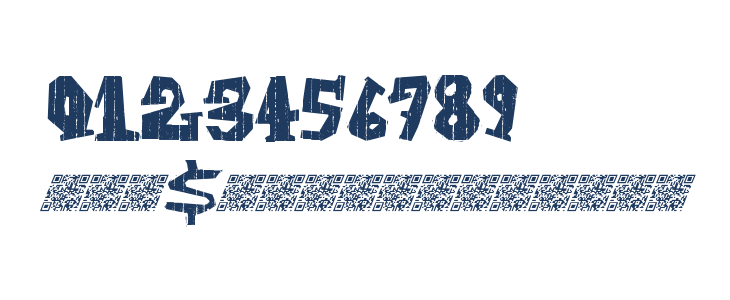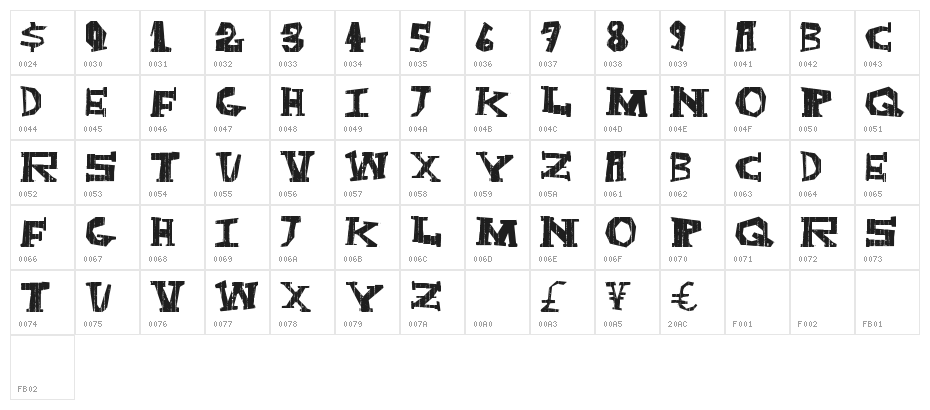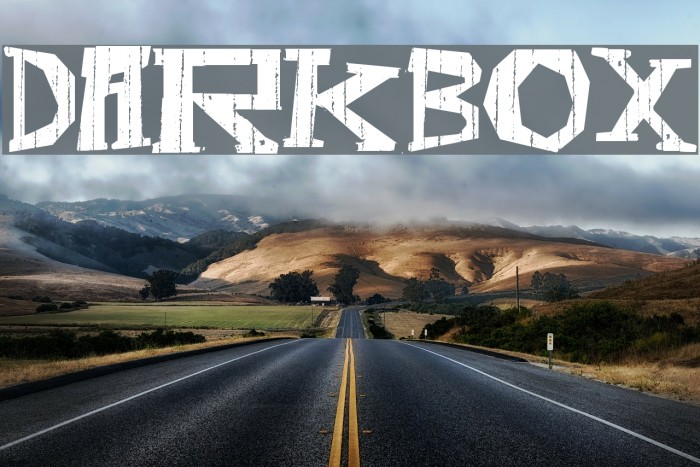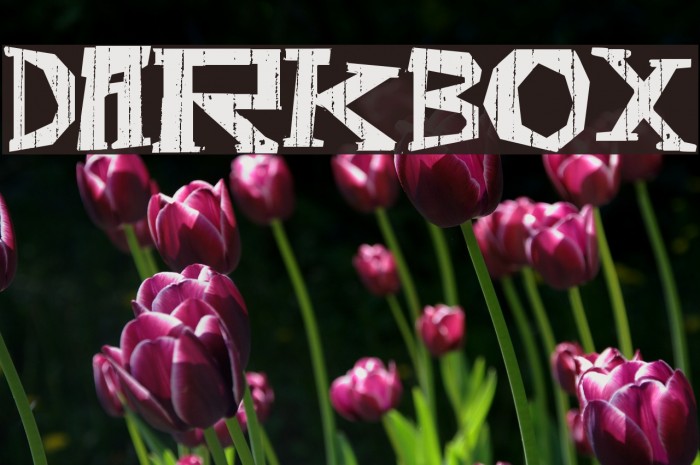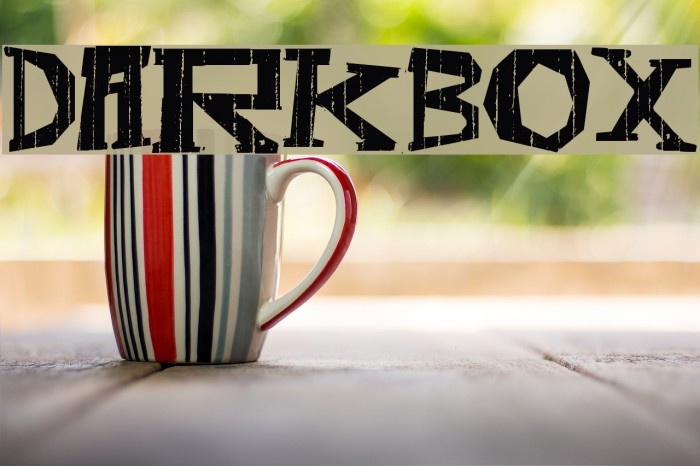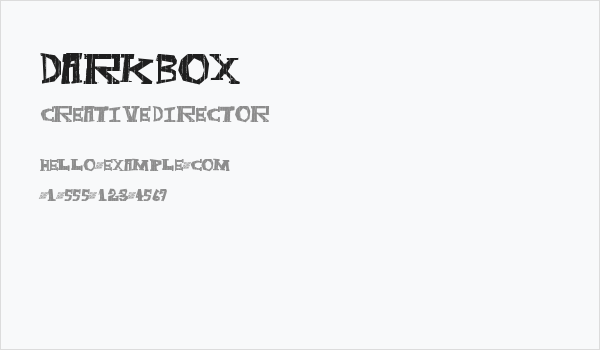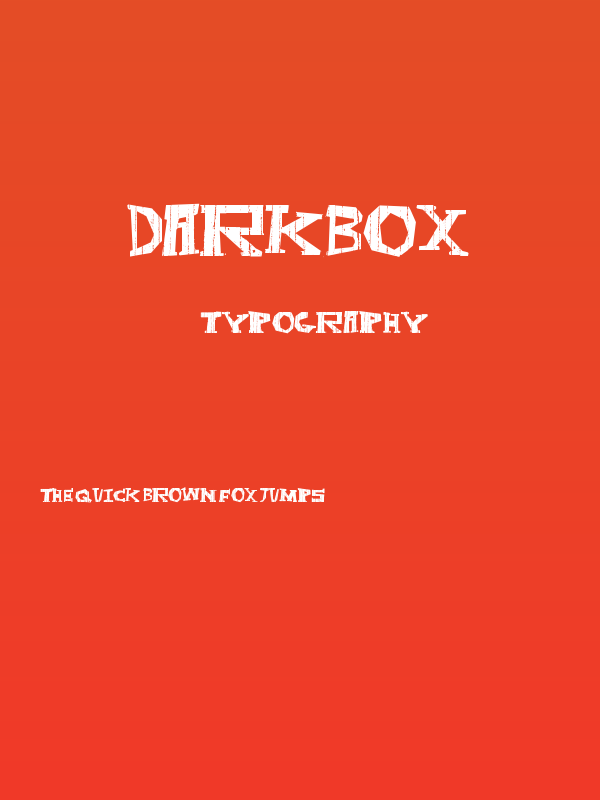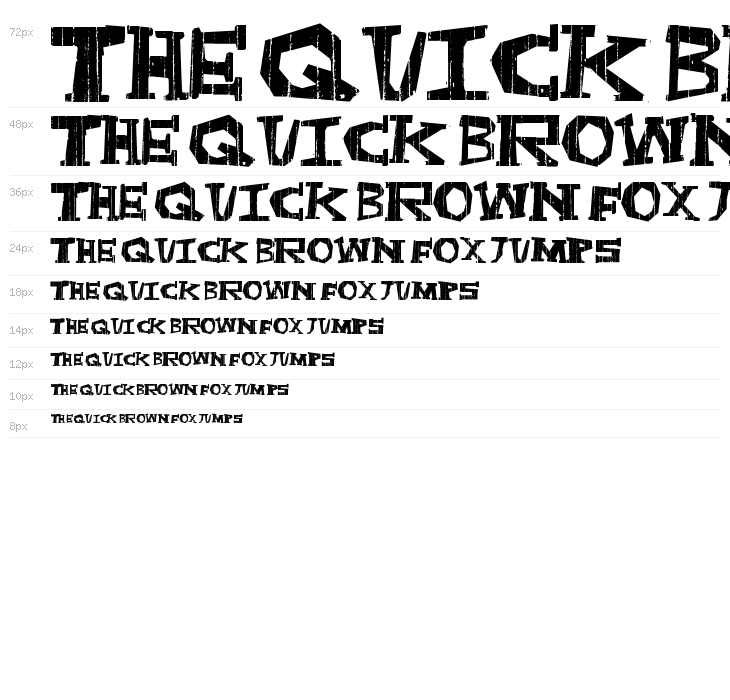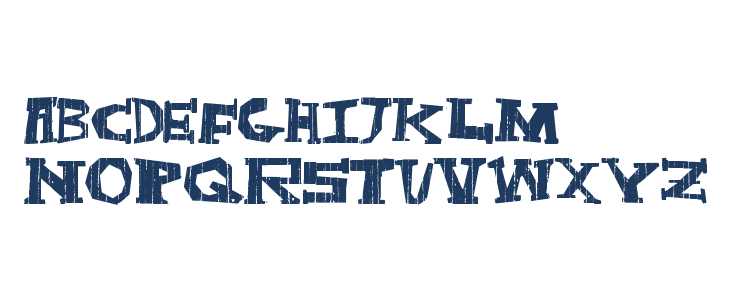
DarkBox Font
DarkBox Description
This font features a bold and rugged design, characterized by its distressed and grunge-like appearance. Each character is uniquely textured, giving it a worn and edgy look that stands out. The letters are angular and geometric, with sharp edges and irregular shapes that contribute to its dynamic style. The font maintains a consistent boldness throughout, making it highly visible and impactful. Its distinctive style is suitable for projects that require a strong and unconventional aesthetic.
| Proposed Projects | Ideal for album covers, posters, urban-themed designs, and branding that requires a bold statement. |